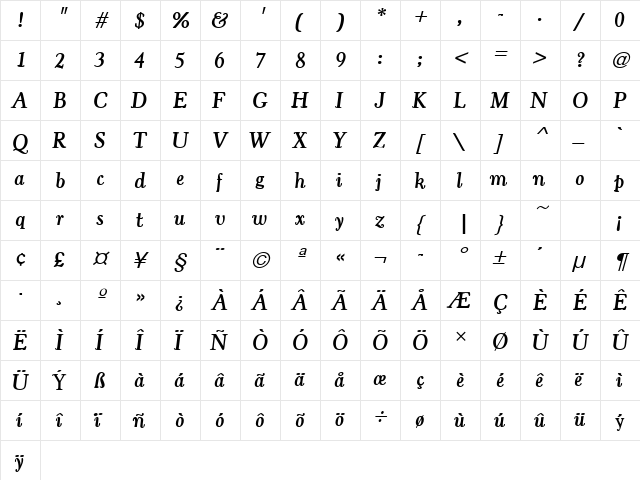
CooperOldStyURWTMed Italic
Design Context for CooperOldStyURWTMed Typeface
CooperOldStyURWTMed offers clean, dependable letterforms without strong stylistic allegiance, making it a practical choice for designers who need flexibility. The slanted form adds forward momentum and visual energy.
Pro Tip: Use CooperOldStyURWTMed for emphasis, pull quotes, and subheadings where its slanted energy can add rhythm to the layout.